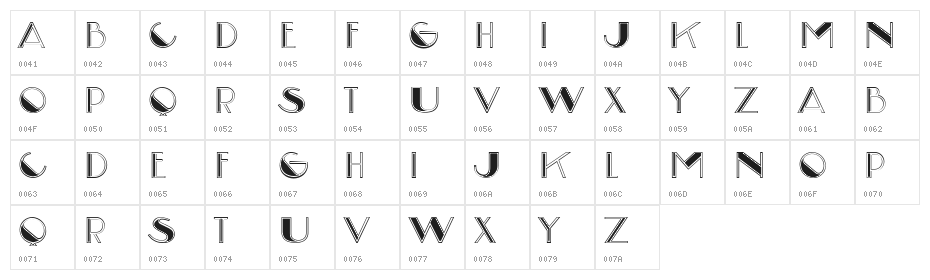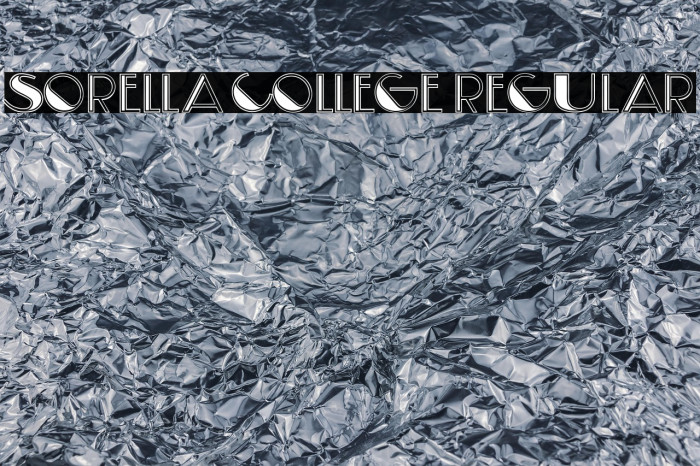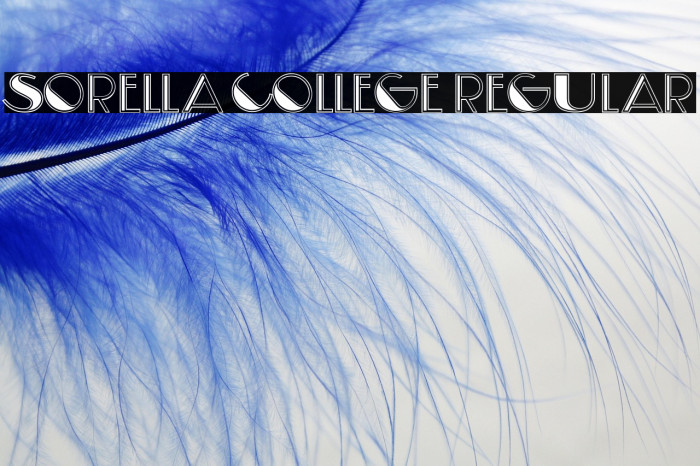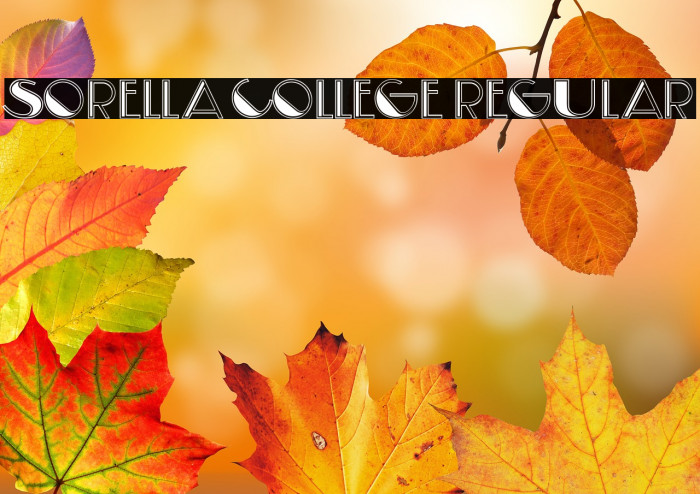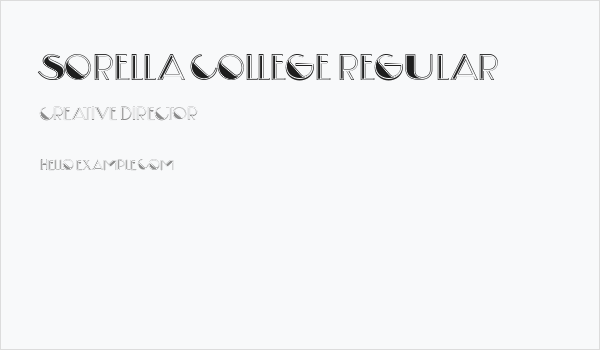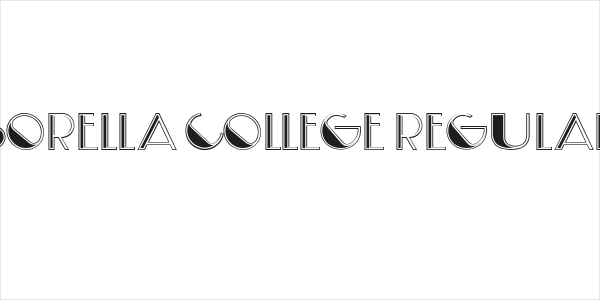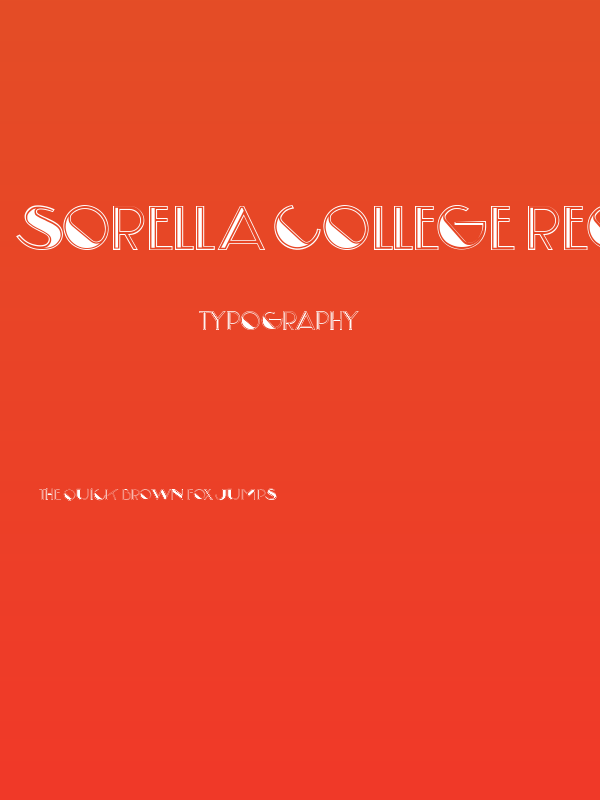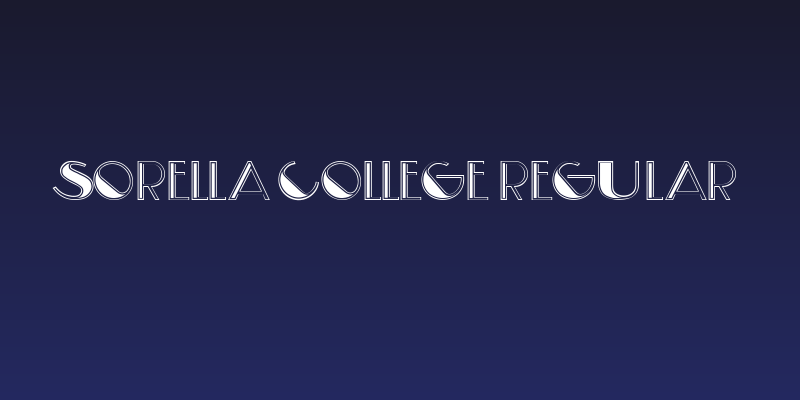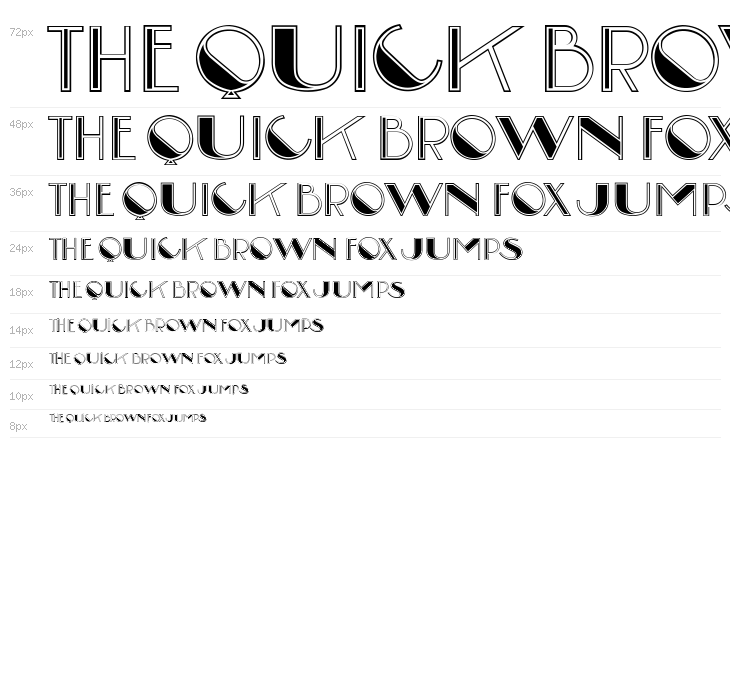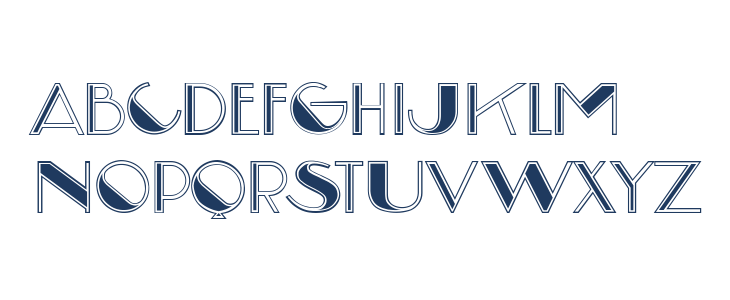
Sorella College Regular Font
Sorella College Regular Description
This font features a unique blend of geometric and art deco elements, characterized by its bold and striking uppercase letters. Each character is designed with a combination of thick and thin strokes, creating a high contrast that adds a sense of elegance and sophistication. The letters are predominantly angular, with sharp edges and clean lines, while some characters incorporate circular elements, providing a dynamic visual appeal. The font's style is both modern and retro, making it versatile for various design applications. Its distinct appearance is suitable for creating eye-catching headlines, logos, and branding materials. The font's design is consistent across all characters, ensuring a harmonious and cohesive look.
| Overall Style | Modern, Retro |
| Proposed Projects | Ideal for branding, logos, posters, and editorial design where a bold statement is needed. |